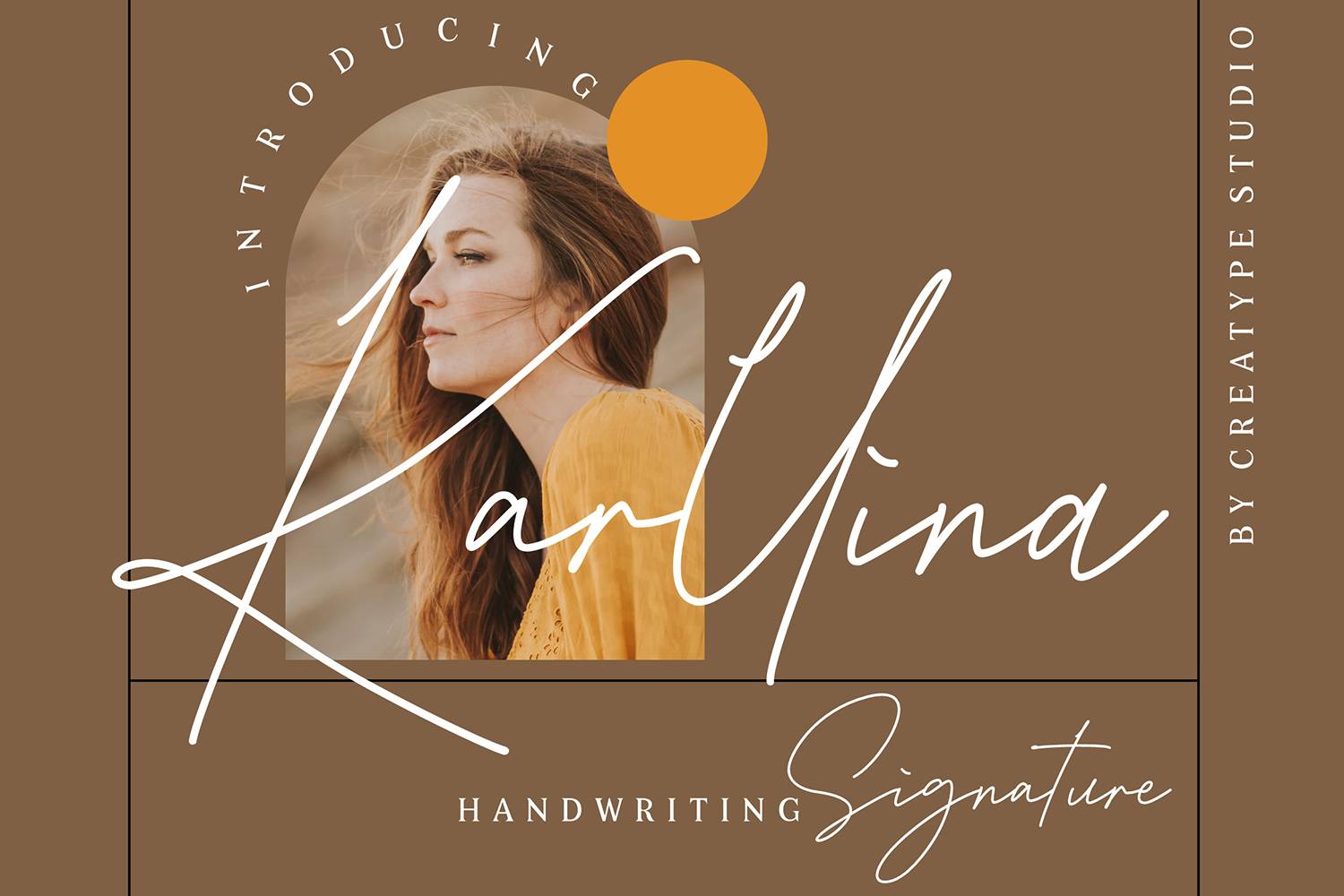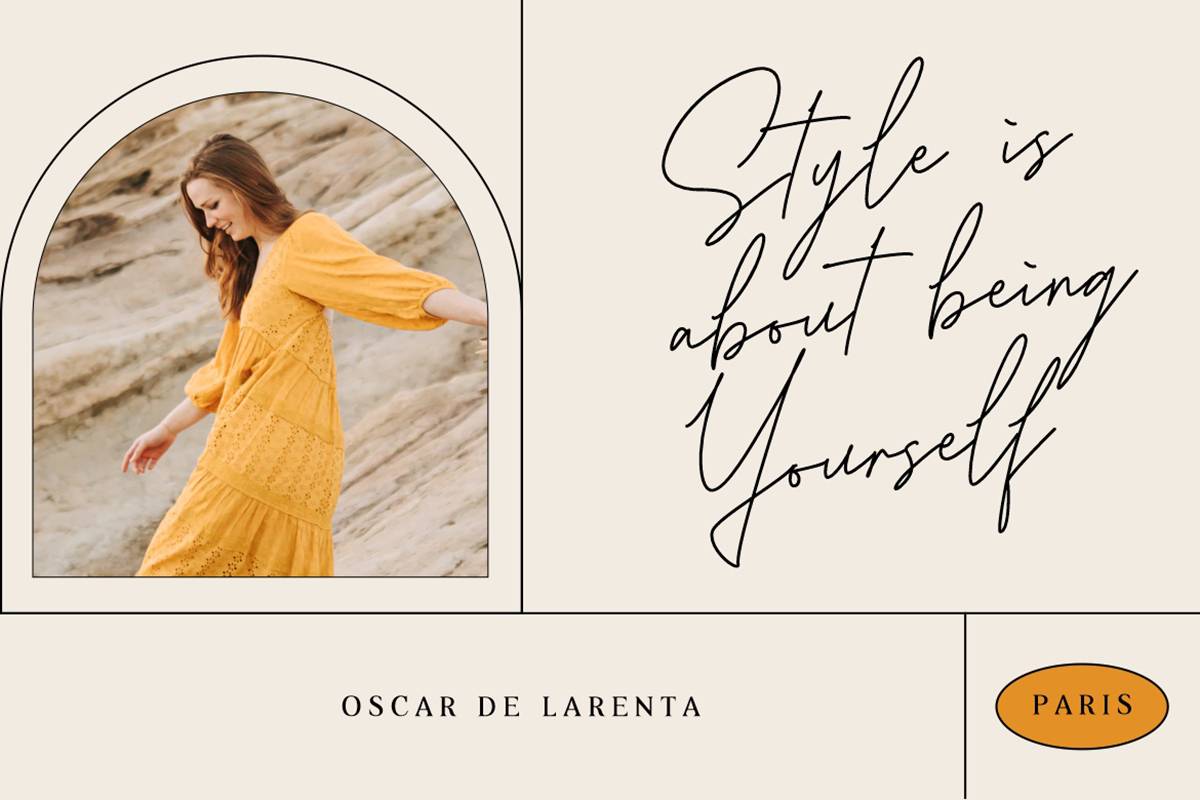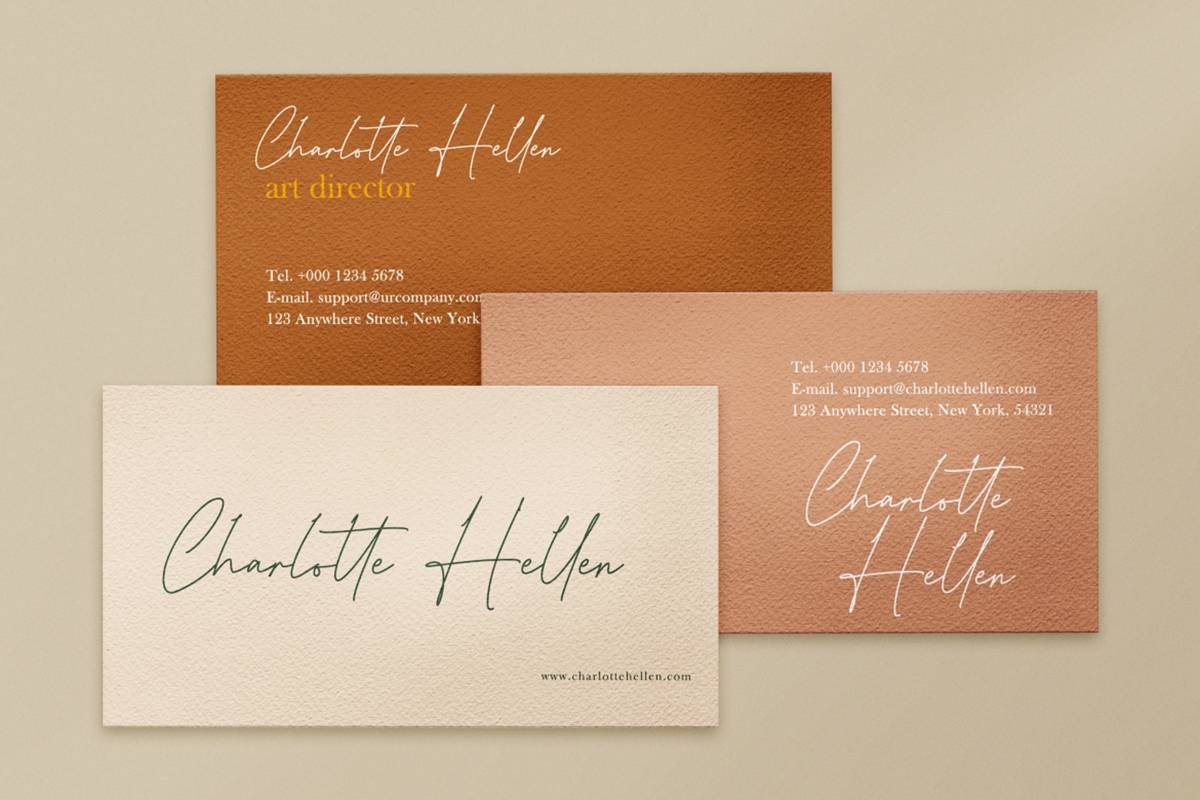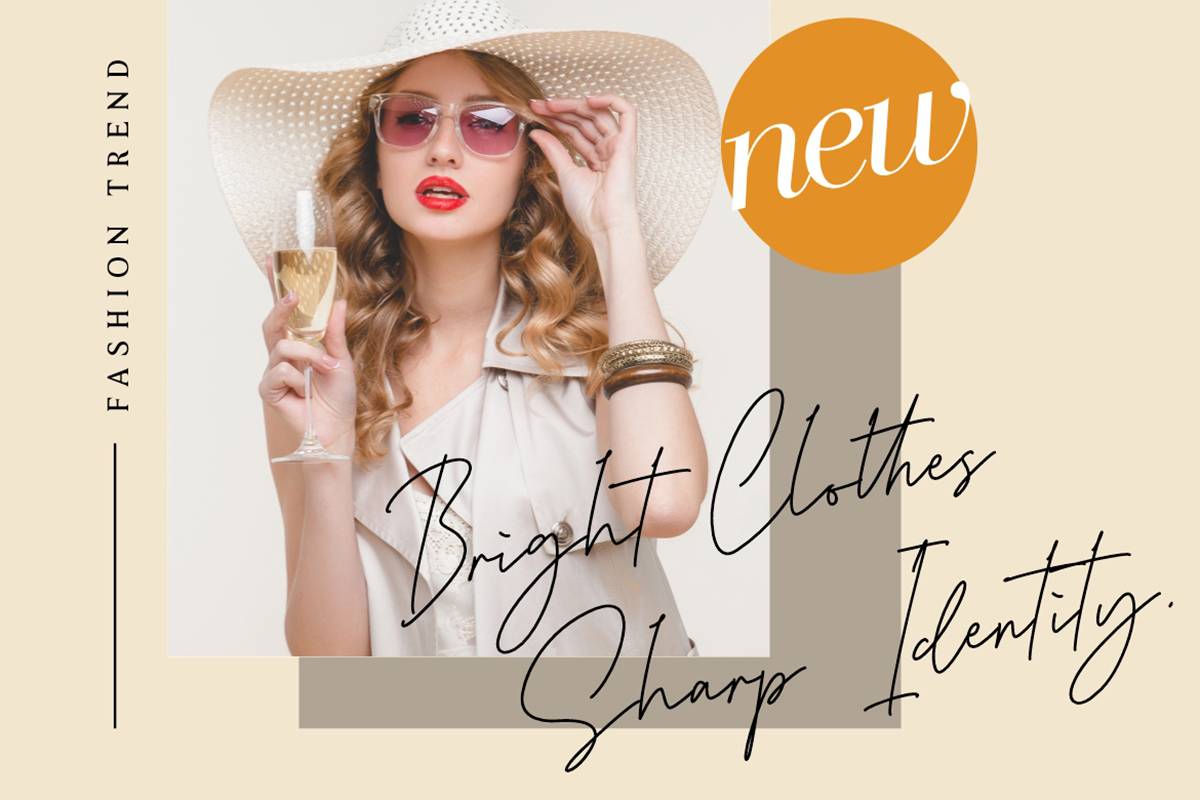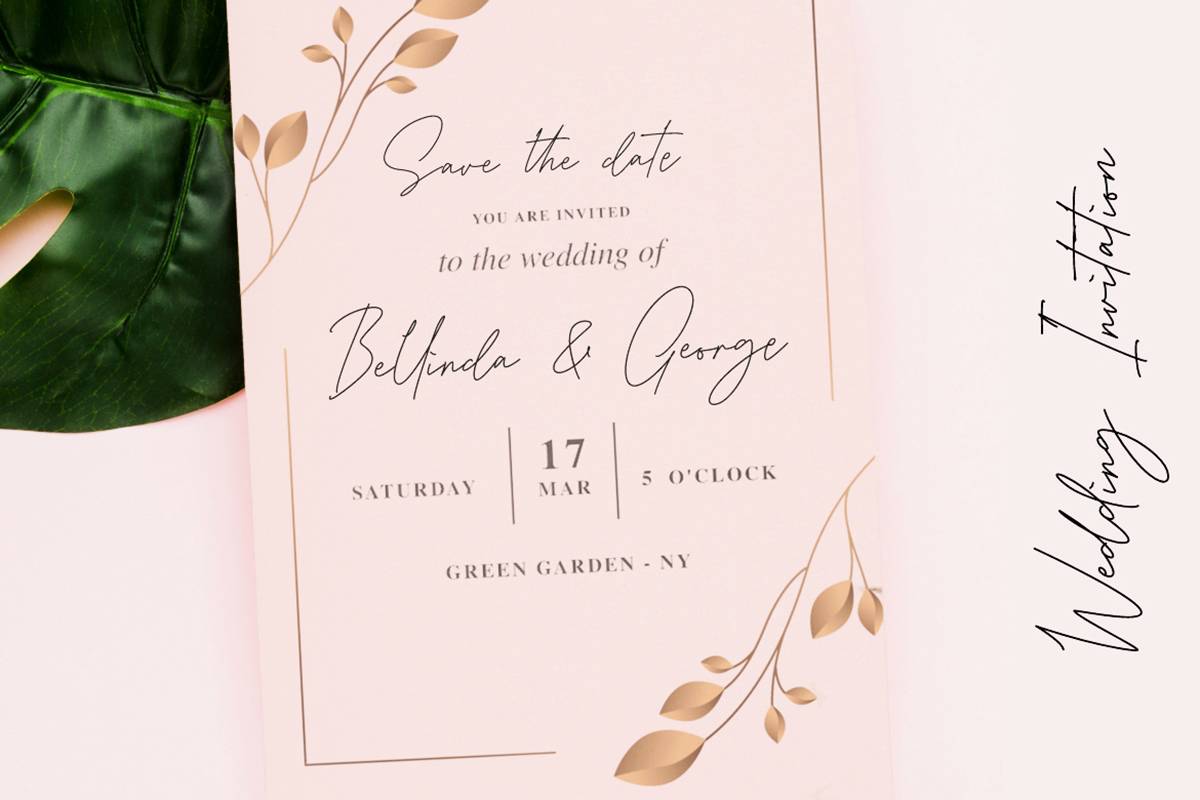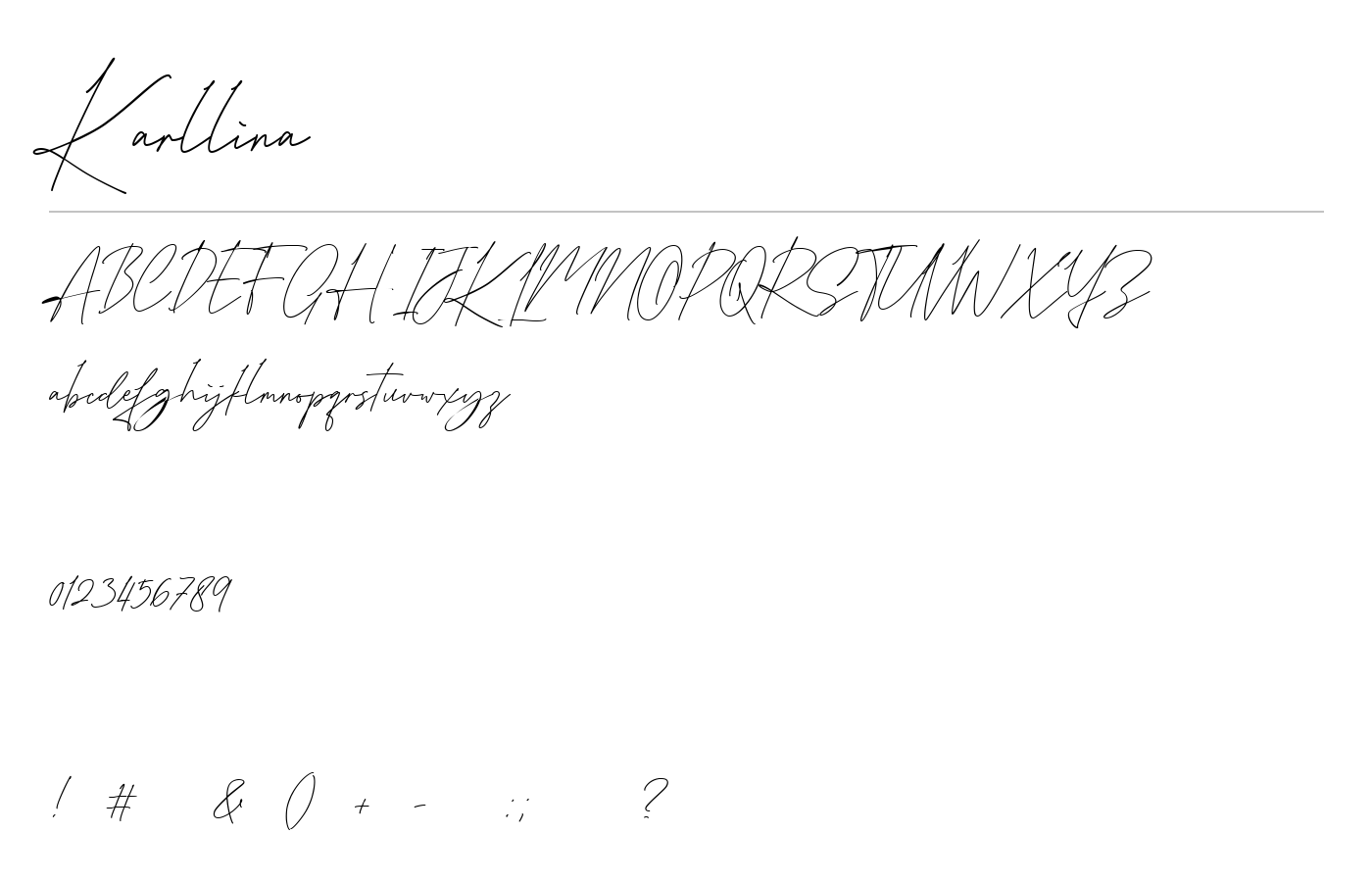
Karllina is a delicate, elegant script font with slender, flowing letterforms that evoke a natural handwritten style. Its light weight and graceful curves make it ideal for sophisticated branding, wedding invitations, and fashion-focused designs where a refined, personal touch is desired. The font’s airy feel and stylish characters work beautifully in logos and headlines, creating a sense of charm and exclusivity.
Karllina Font
About Karllina Font